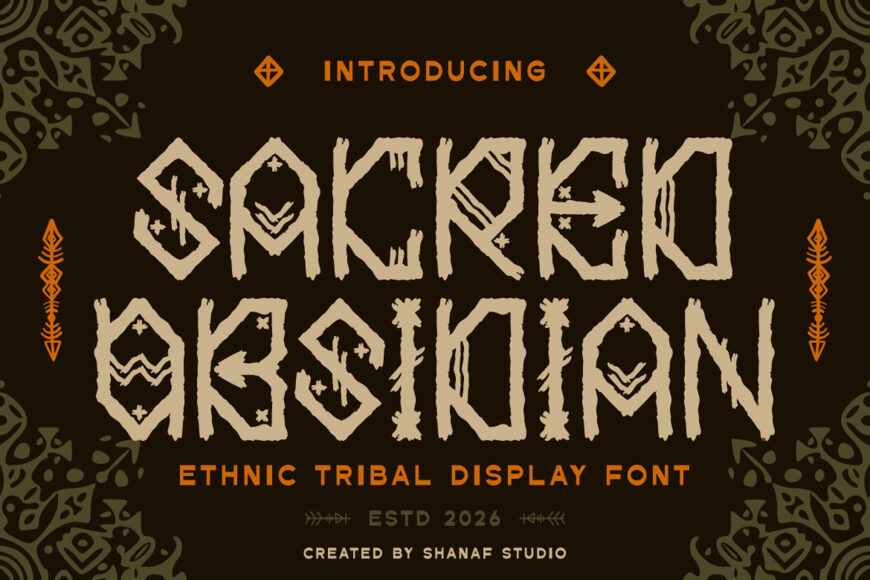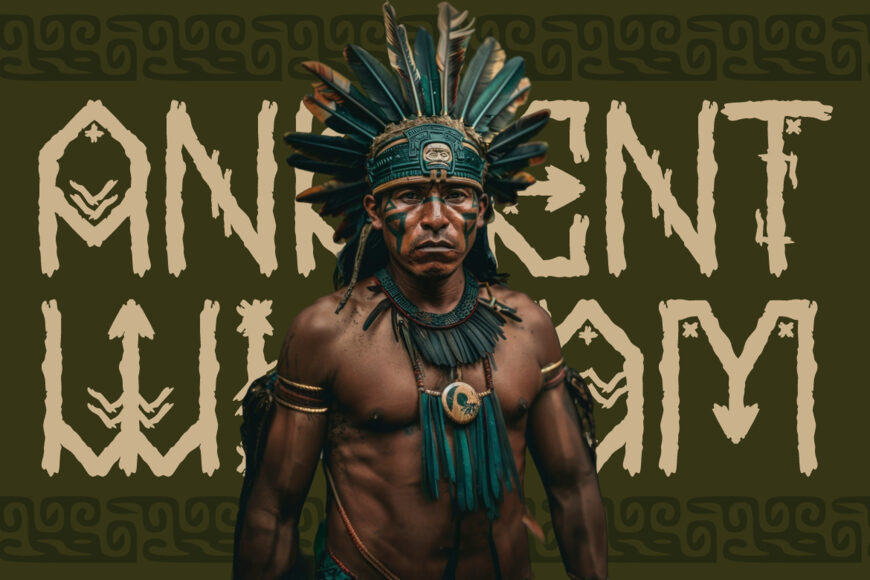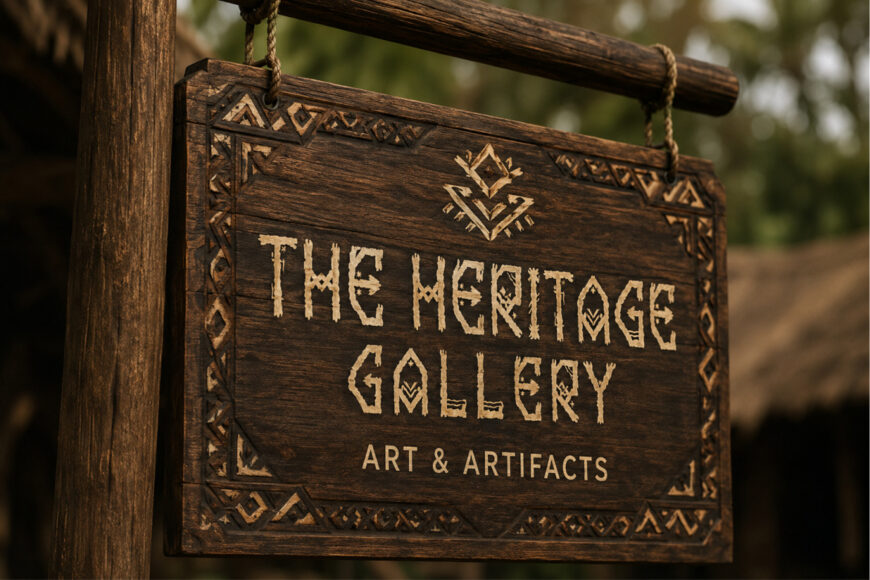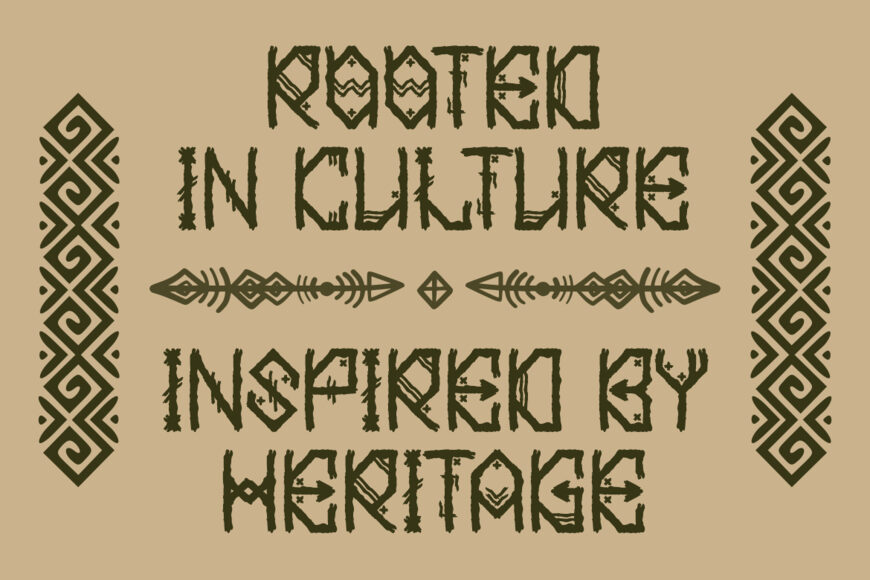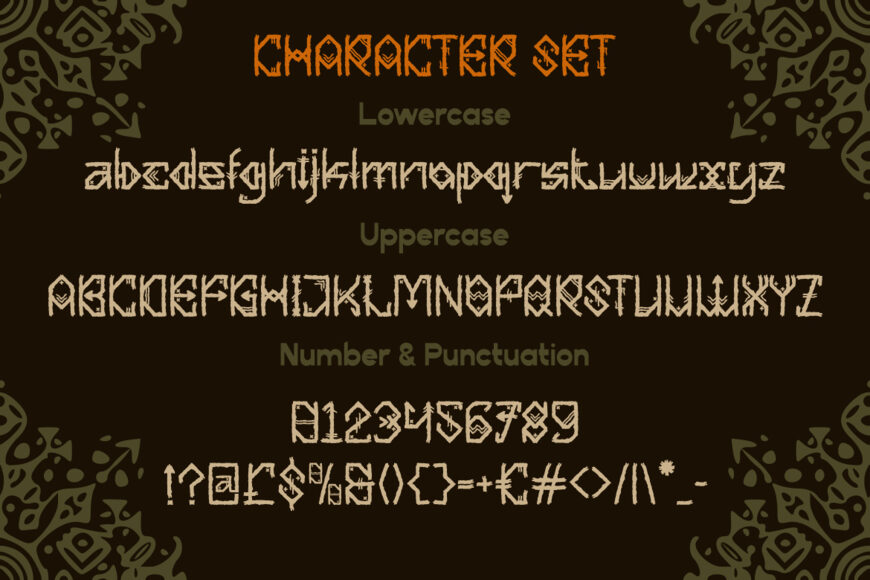
Sacred Obsidian Font
Sacred Obsidian is an ethnic tribal display font inspired by carved lettering, featuring angular cuts, rough hand-drawn edges, and tall, irregular forms. Sharp strokes, symbolic marks, arrows, diamonds, and engraved details give each character a distinctive handmade, cultural feel while maintaining bold headline impact.
Ideal for heritage logos, cultural branding, museums, galleries, craft studios, traditional packaging, posters, book covers, stickers, invitations, and historical event titles, it suits rustic, classic, tribal, and traditional themes. The font also works well for folklore festivals, cultural exhibitions, local tourism, nature retreats, artisan products, handmade goods, and heritage-inspired restaurants seeking a strong visual identity.